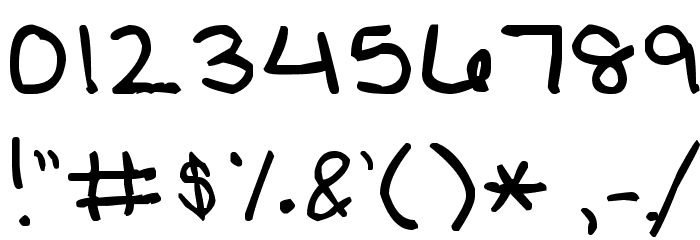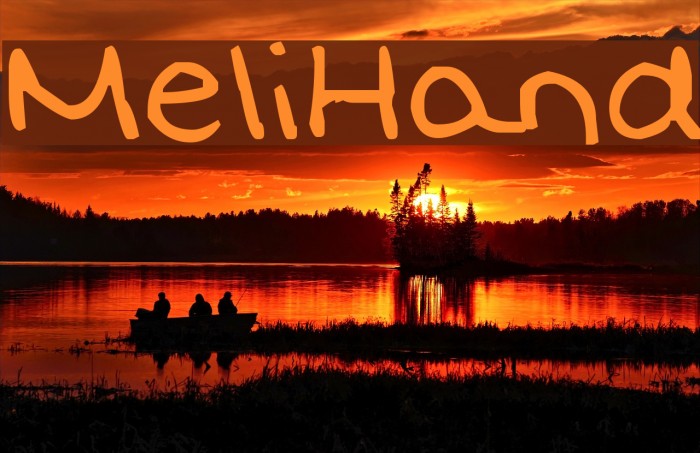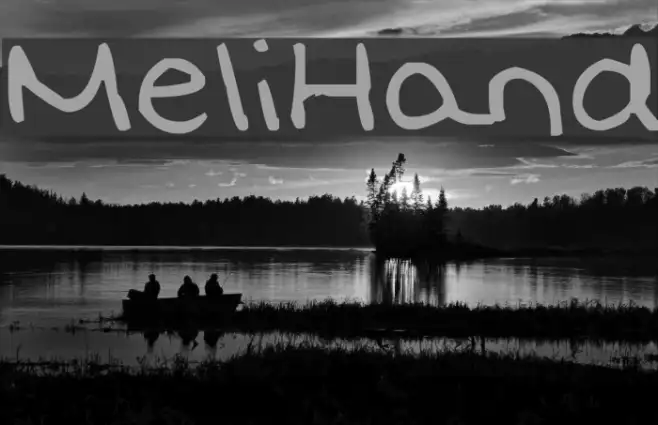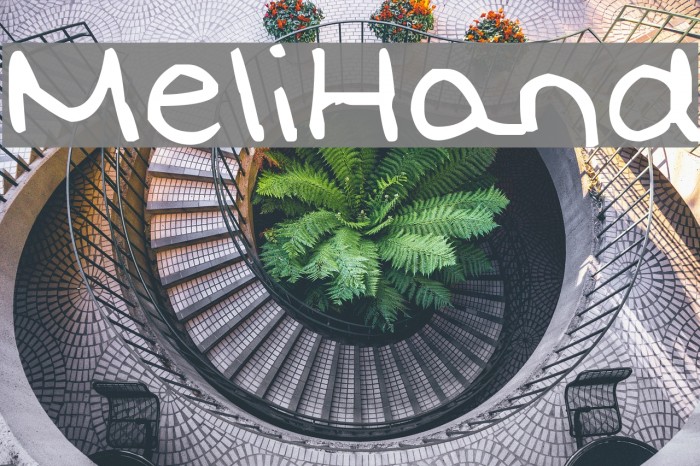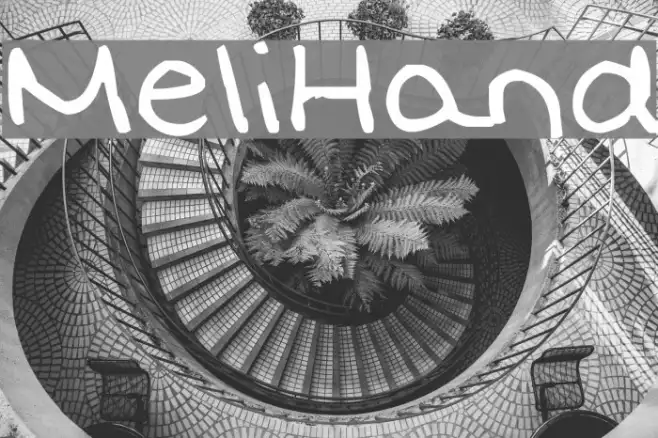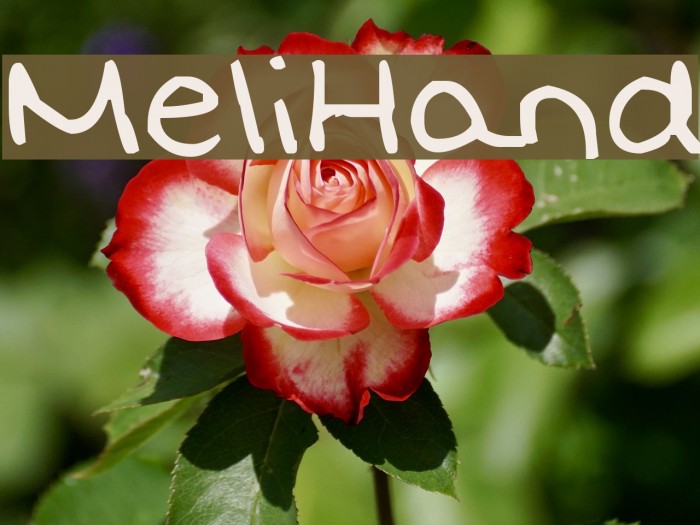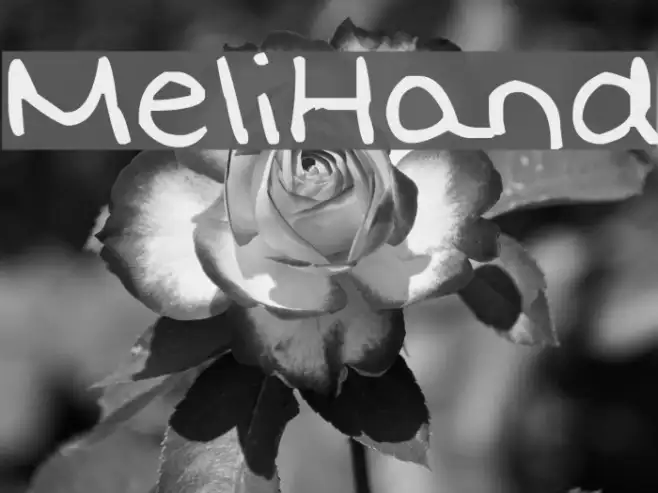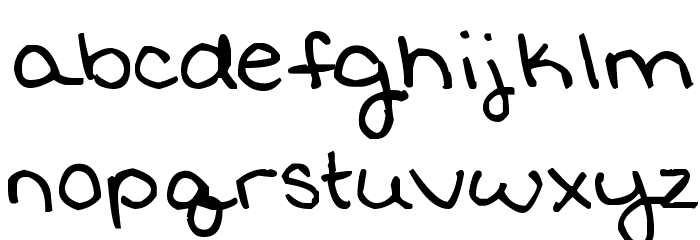
MeliHand Font
This font features a playful and informal handwritten style, characterized by its smooth, flowing lines and slightly uneven letterforms. The uppercase and lowercase letters maintain a consistent style, with rounded edges and a casual appearance. The numerals and special characters follow the same aesthetic, adding to the font's cohesive look. This font exudes a friendly and approachable vibe, making it ideal for projects that require a personal touch. Its legibility is maintained despite the informal style, ensuring it remains functional for various uses.
A playful, informal handwritten font with smooth, flowing lines.
• Proposed Projects: Ideal for greeting cards, invitations, personal blogs, and children's books.
• Overall Style: Casual
• Use Case: Headlines, Informal text, Personal projects